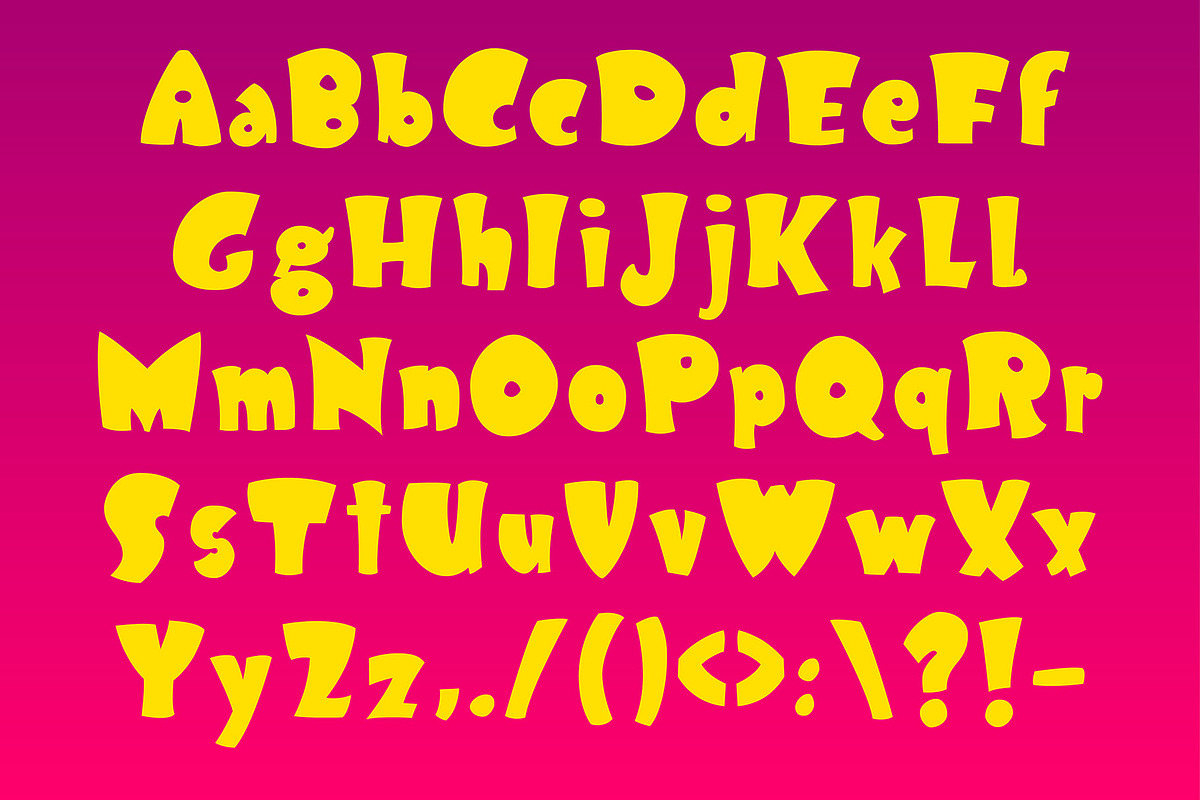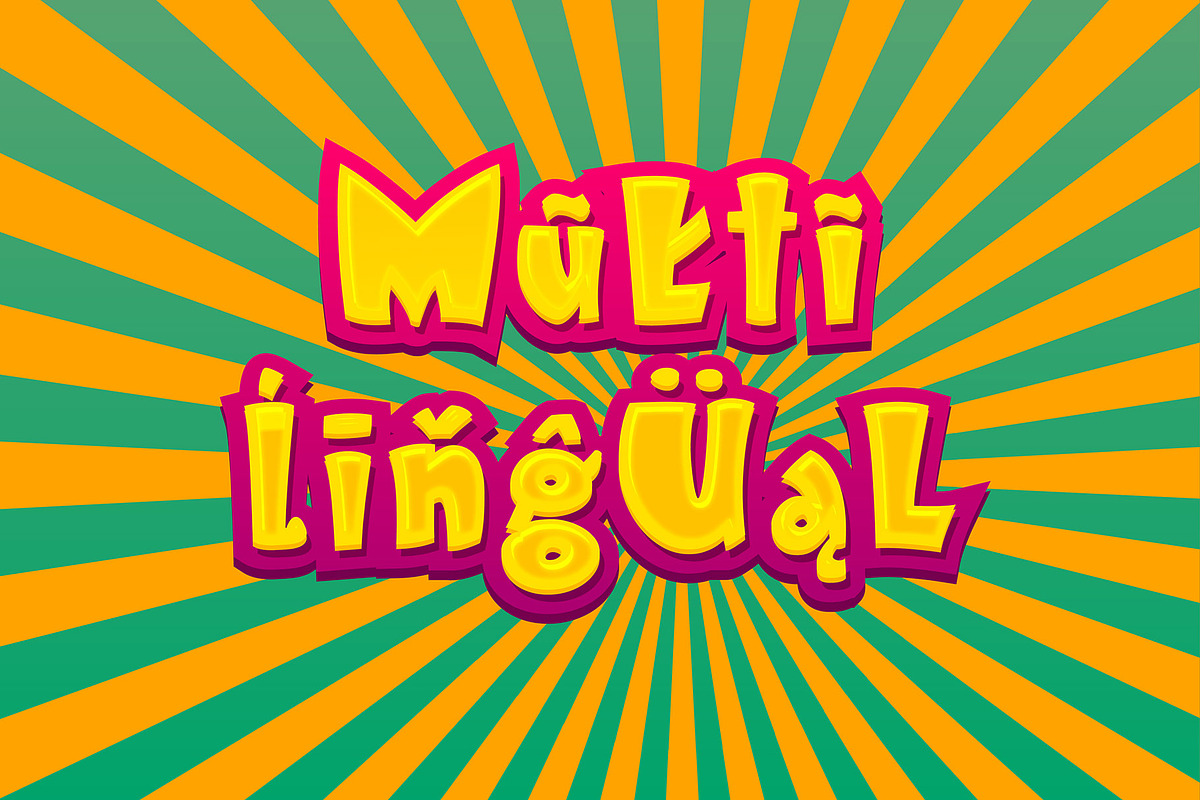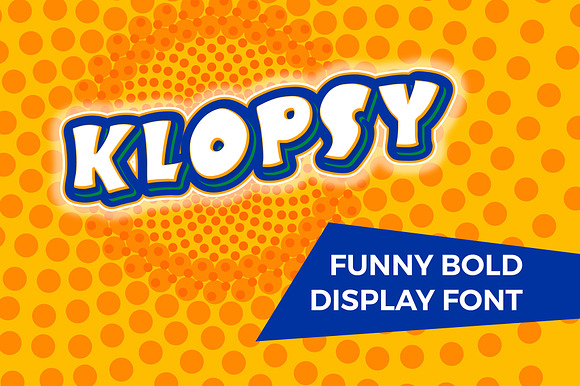
KLOPSY - funny bold display font
Klopsy is funny bold display font designed for headlines and typographic applications.
KLOPSY - funny bold display font by Uncle Avi's Supply fits naturally into Branding, posters, packaging, typography.